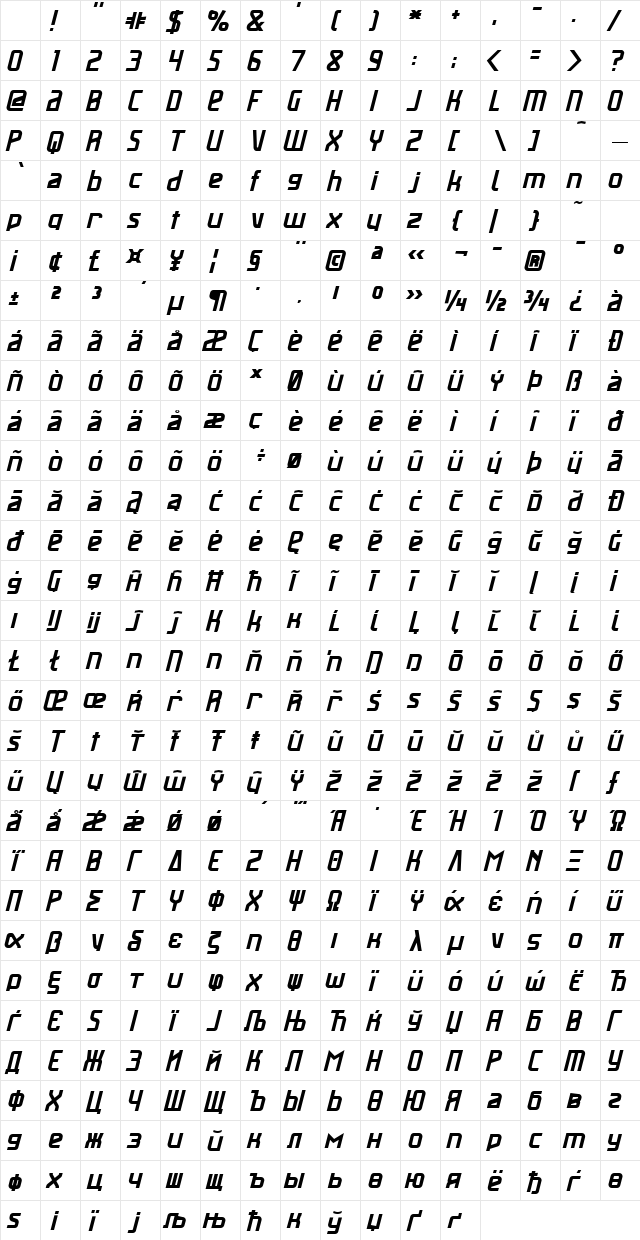
Complete Maassslicer Regular glyph index. Displaying only characters natively supported by Maassslicer Regular font.
Maassslicer is a composed and adaptable typeface that performs quietly and consistently across a wide range of design contexts.